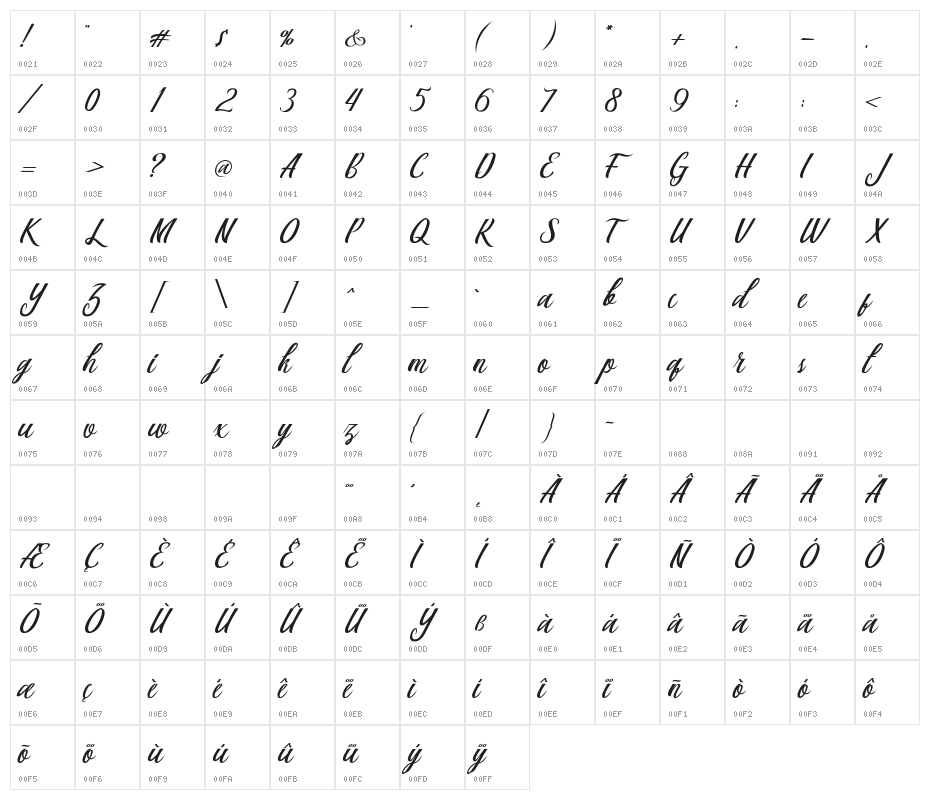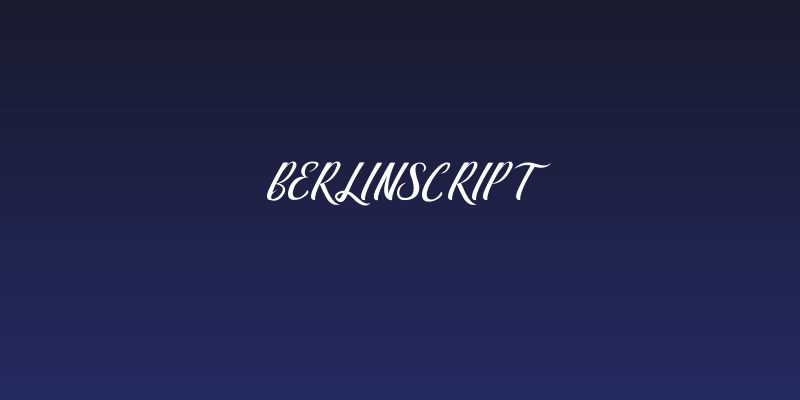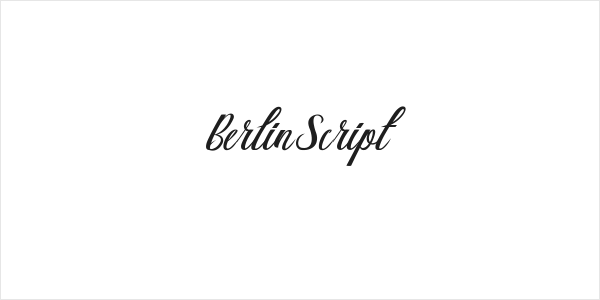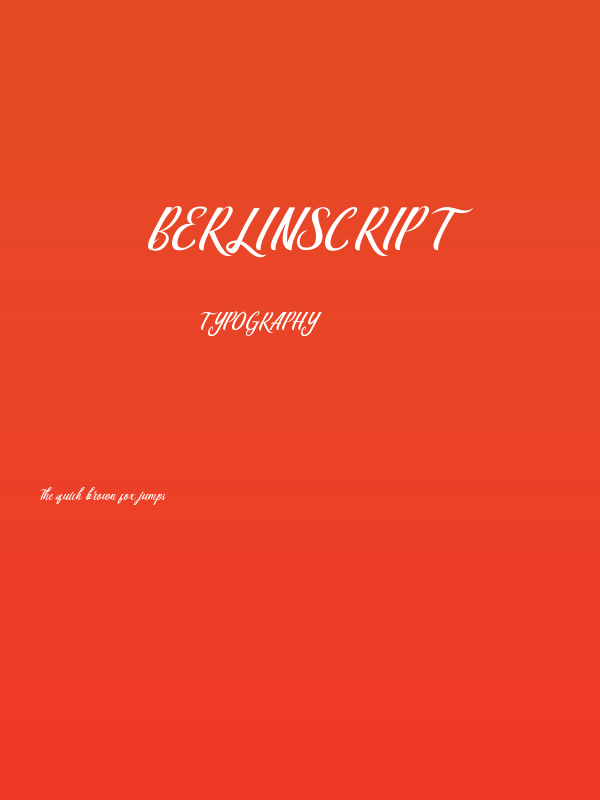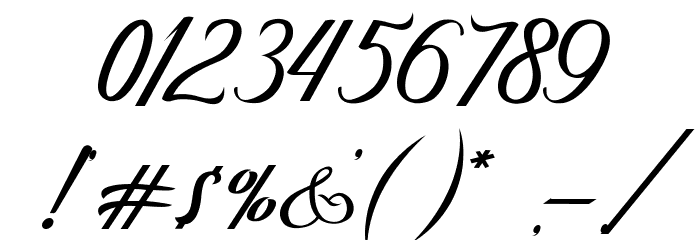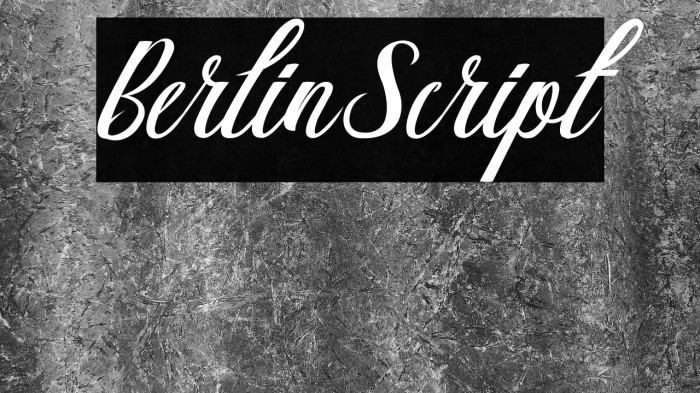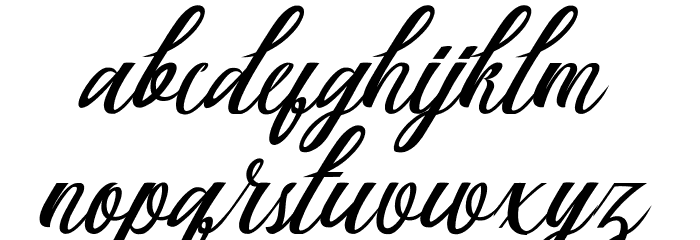
BerlinScript Font
BerlinScript Description
This font exudes a classic and elegant script style, characterized by its flowing and connected letterforms. The uppercase letters are bold and prominent, featuring sweeping curves and flourishes that add a touch of sophistication. The lowercase letters maintain a consistent slant, enhancing the fluidity and grace of the script. Numbers and special characters are designed to complement the overall aesthetic, with a harmonious blend of curves and lines. The font's high contrast between thick and thin strokes adds to its dramatic and stylish appearance, making it suitable for a variety of creative applications.
| Use Case | Logos, Invitations, Decorative Headlines |
| Proposed Projects | Ideal for wedding invitations, elegant branding, luxury product packaging, and decorative headlines. |